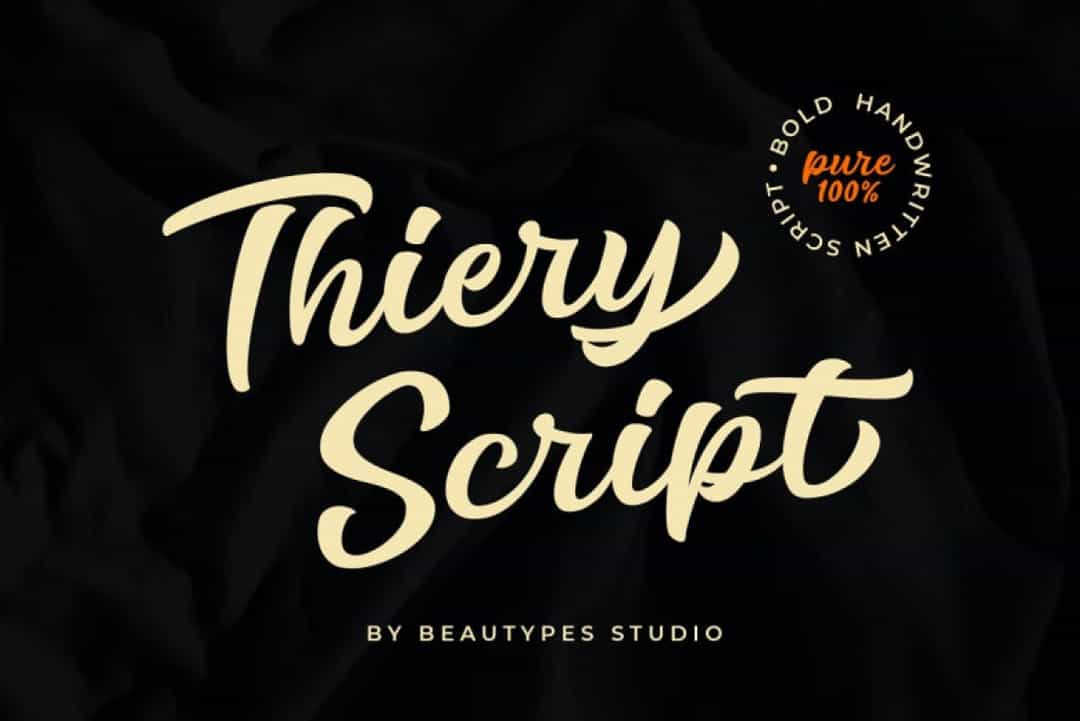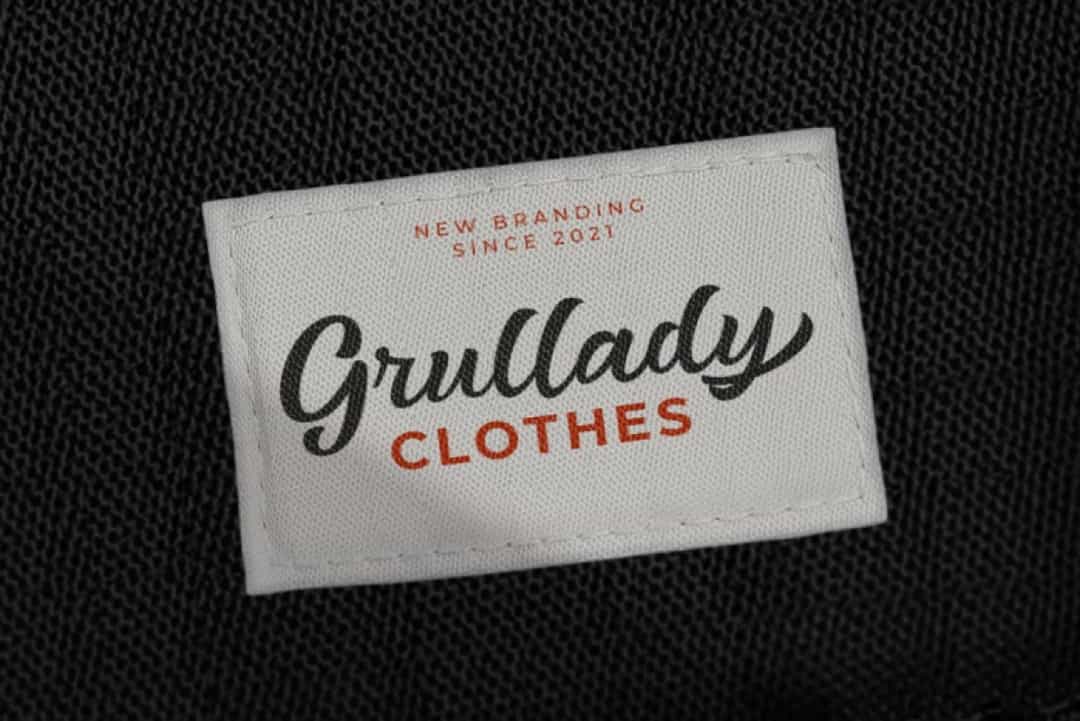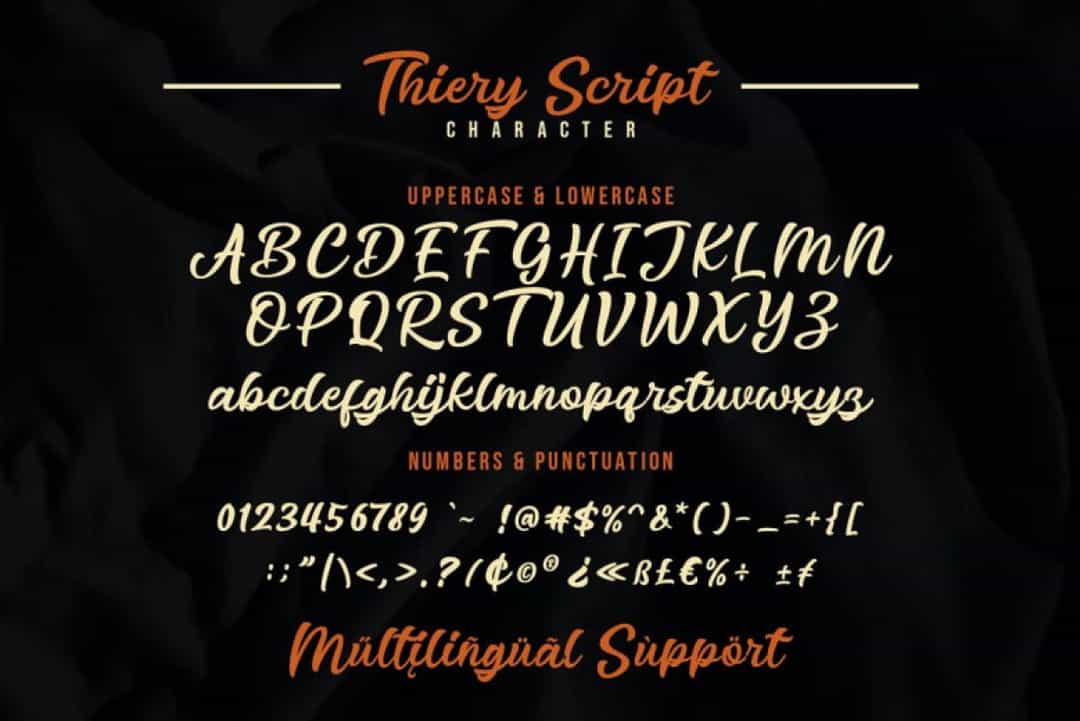
Thiery is an elegant script font perfect for logotypes and branding projects, reflecting modern elegance with its trendy, modern style and classically elegant appearance. Perfect for invitations, apparel packaging, branding or advertising.